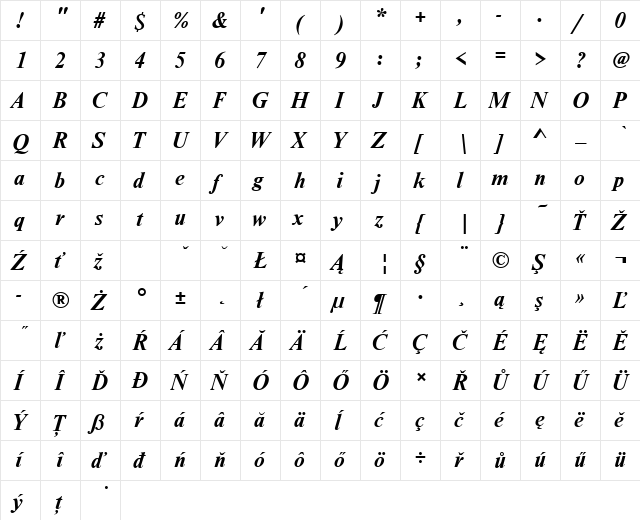
NimbusRomDEE Bold Italic
Design Context for NimbusRomDEE Typeface
NimbusRomDEE is a composed and adaptable typeface that performs quietly and consistently across a wide range of design contexts. Its italic angle brings a sense of urgency and motion to the letterforms. Its bold stroke weight gives it real presence on the page.
Pro Tip: Use NimbusRomDEE for emphasis, pull quotes, and subheadings where its slanted energy can add rhythm to the layout.